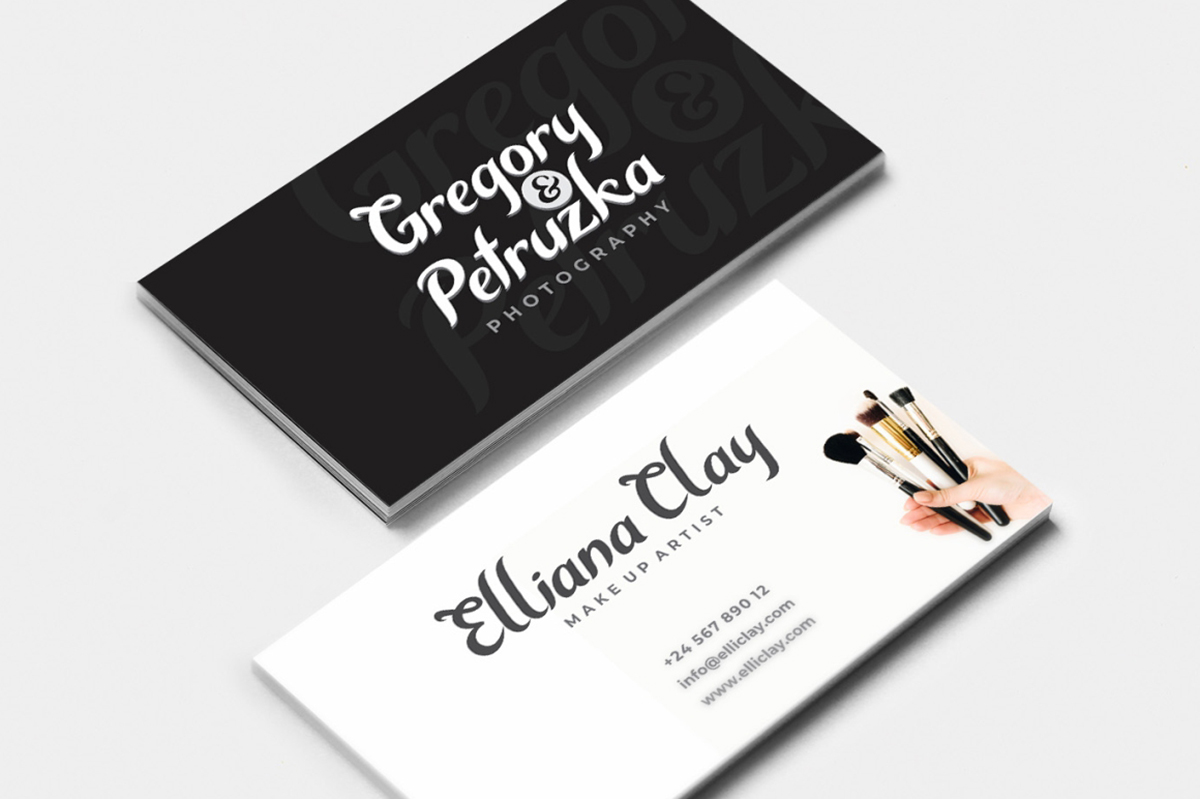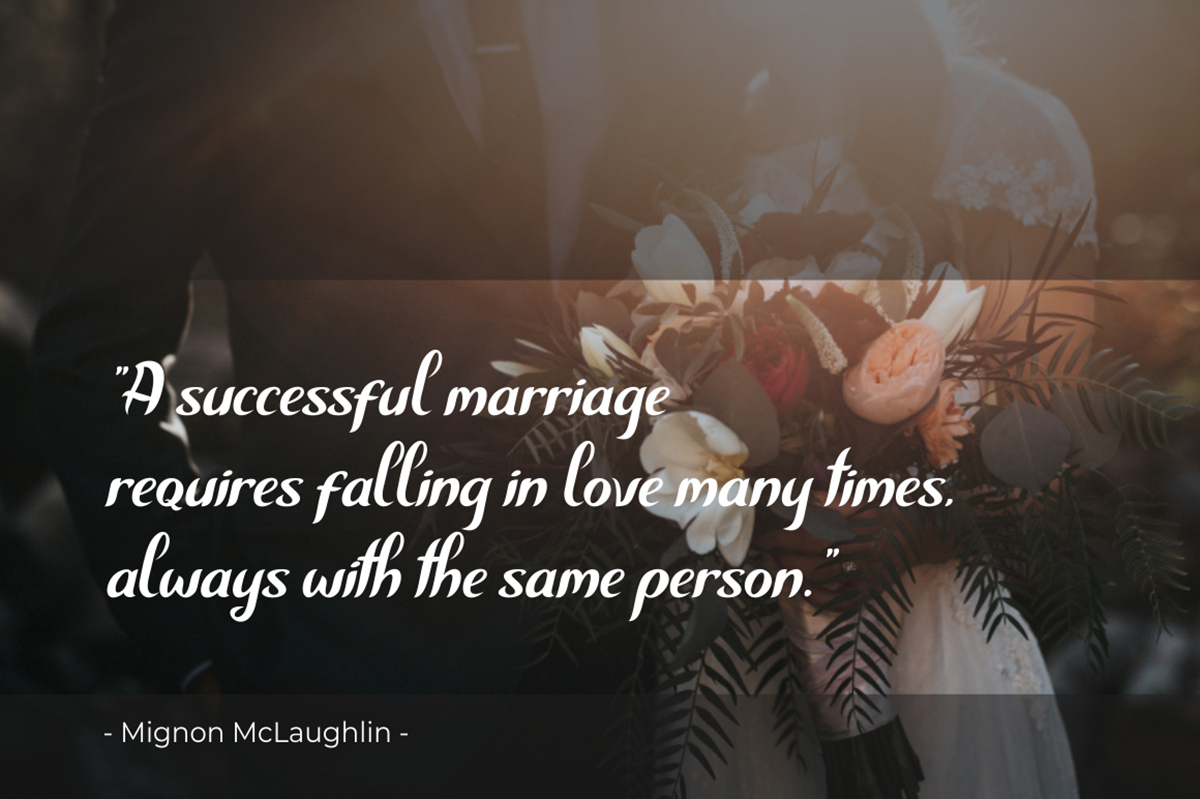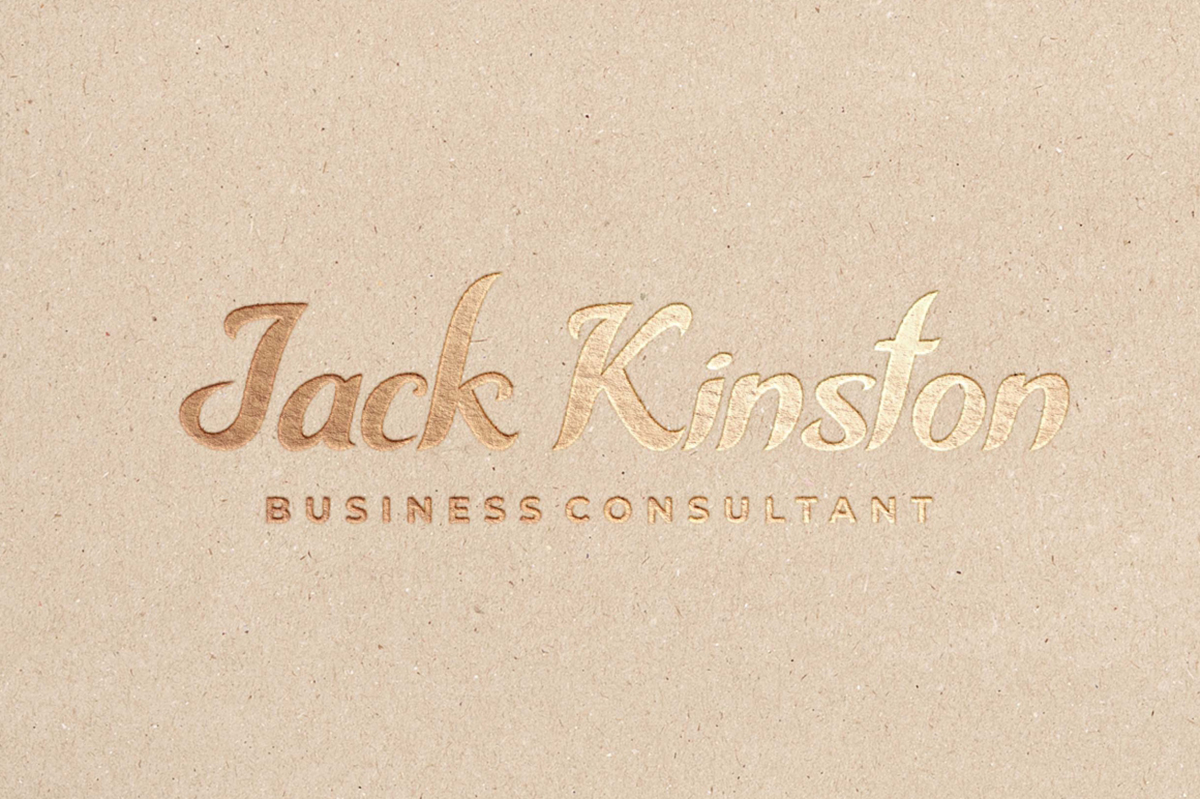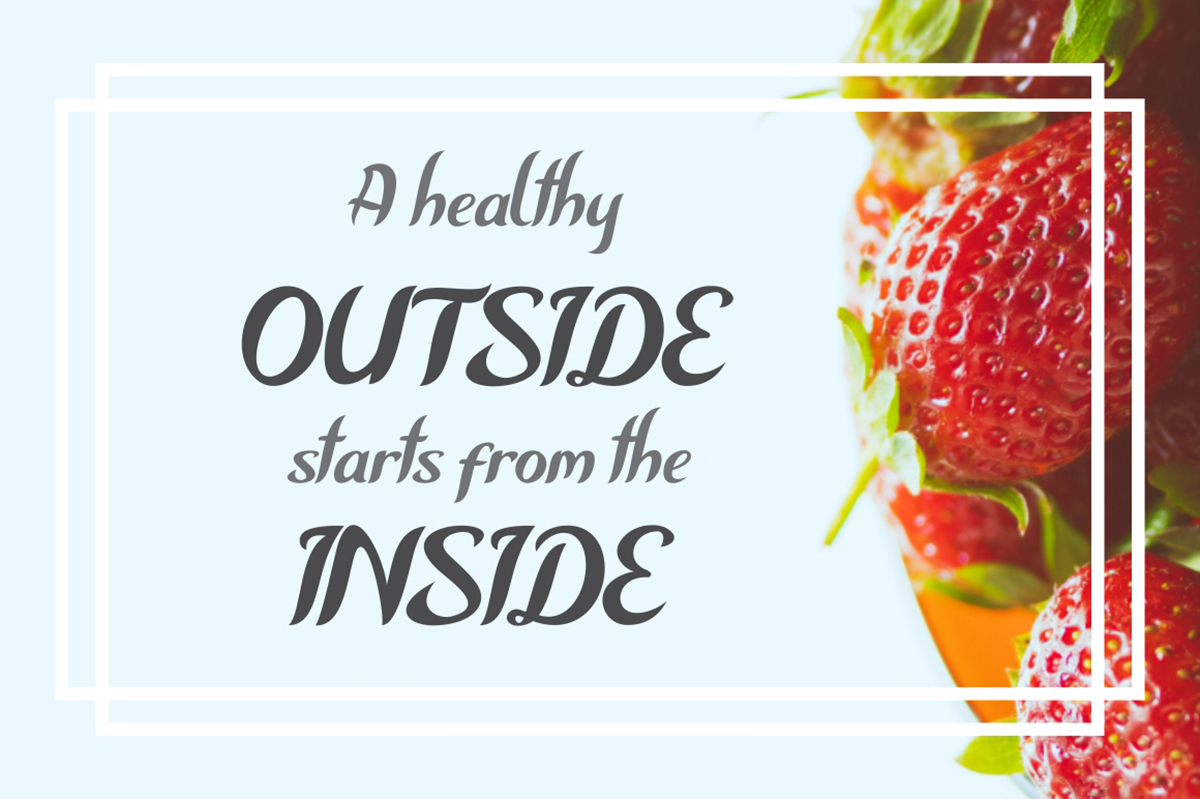
Shadowsky Free Font
Shadowsky Free Font is a modern and sharp handwritten font. This font reads as strong, confident, and dynamic and can add tons of nostalgic character to your designs. This free typeface was designed by talented Mario Dsgn. If you like it don’t forget to check out the full version.